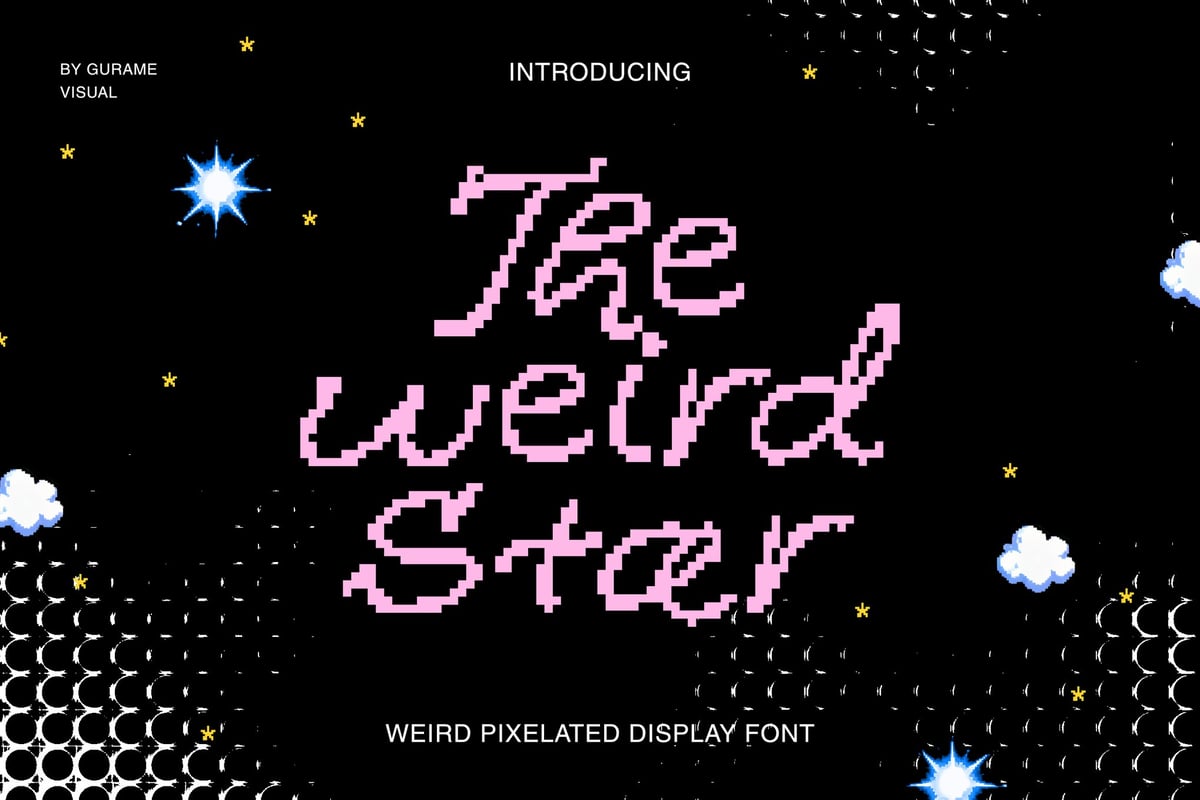
The Weird Star - Pixelated Font
A quirky pixelated script font that fuses retro gaming nostalgia with playful handcrafted charm.
The Weird Star is a one-of-a-kind display typeface built for projects that demand personality. Chunky pixel edges meet fluid, whimsical letterforms to create a look that's bold, readable, and unmistakably fun. Whether you're channeling 8-bit retro vibes or crafting something totally offbeat, this font delivers.
It's a versatile pick for a wide range of creative applications, including:
- Game graphics and indie game UI
- Retro-inspired branding and logos
- Posters and album covers
- Social media content and stickers
- Packaging and creative merchandise
- Pixelated display style with retro gaming inspiration
- Uppercase and lowercase letters
- Numbers and punctuation
- Extensive multilingual support for global creators
Bring nostalgic pixel aesthetics into your next project with The Weird Star — a playful display font designed to make every headline shine.